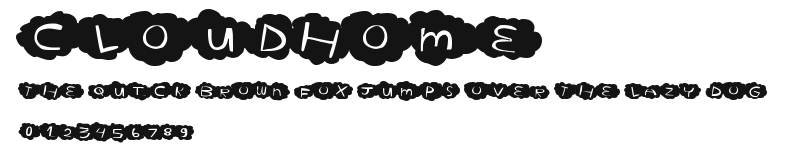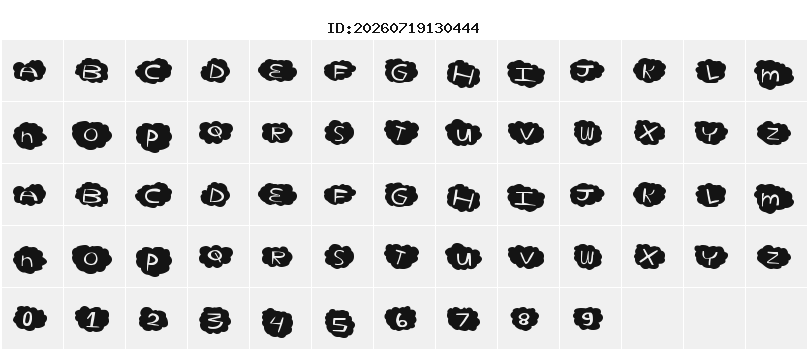
• Font Name: CloudHome
• Designer: Max Infeld
• Manufacturer: Xerographer Fonts
• Description: This font at in Ojai,CA clound handdrawn hand drawn cloud puffy smoke
About CloudHome.ttf